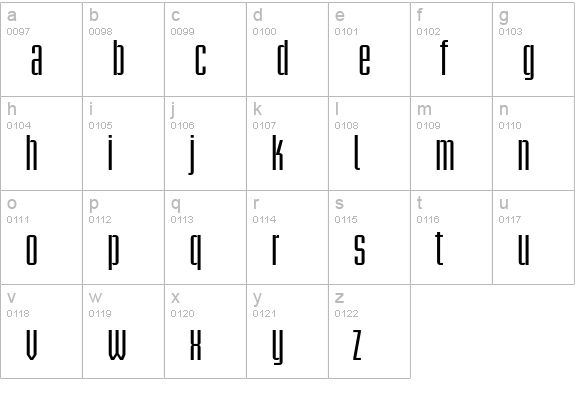
Briem Akademi Std Semibold Condensed is a sub-bold, structured, condensed-width variant in the Briem typeface family \xE2\x80\x94 well suited to sub-headlines and emphasised passages.
The Briem Akademi Std Semibold Condensed font is a modern and sleek typeface designed for projects that require a bold and condensed look. Its sturdy and authoritative appearance makes it perfect for titles, headings, and other prominent text elements. The font exudes a sense of strength and professionalism, making it ideal for conveying a bold and confident message. What sets Briem Akademi Std Semibold Condensed font apart is that it is available for free download at FontsMarket.com. This means that you can easily access this high-quality typeface without any cost, making it a valuable resource for designers, businesses, and individuals looking to enhance their projects with a bold and impactful font. With its versatility and strong visual presence, Briem Akademi Std Semibold Condensed font is sure to make a lasting impression on any design it is used in.